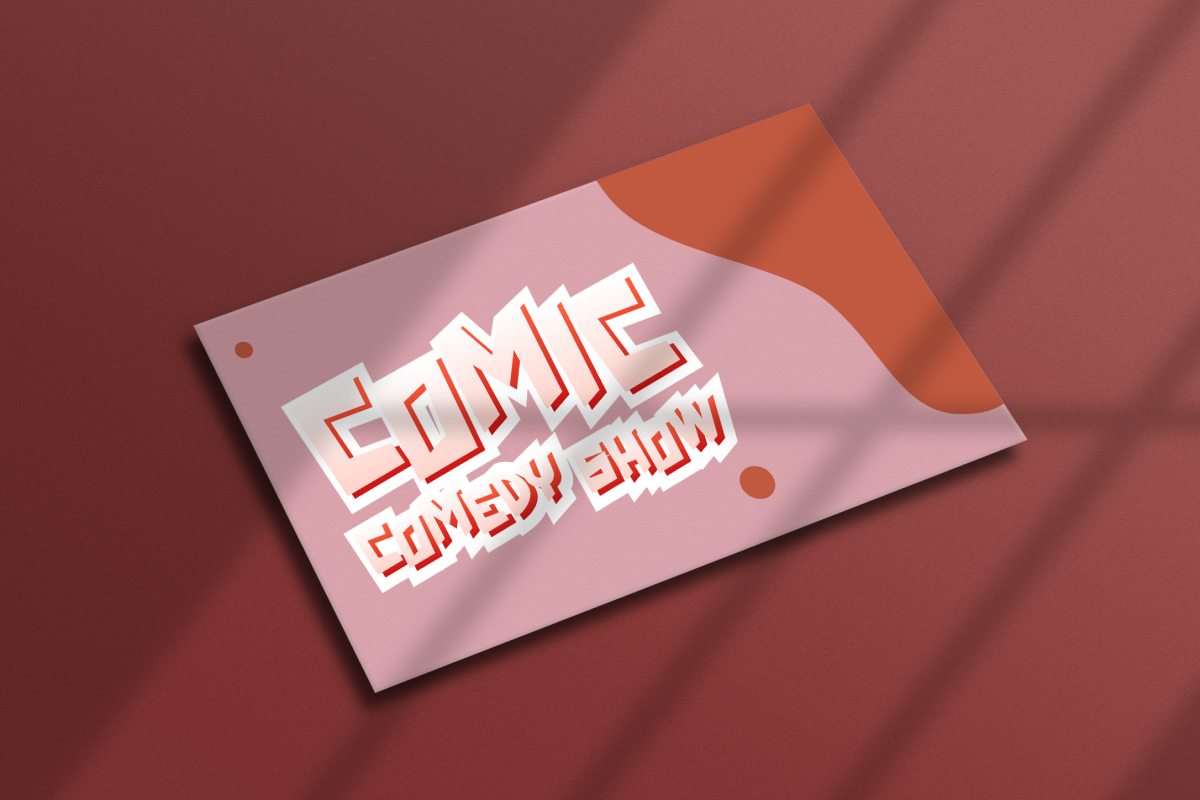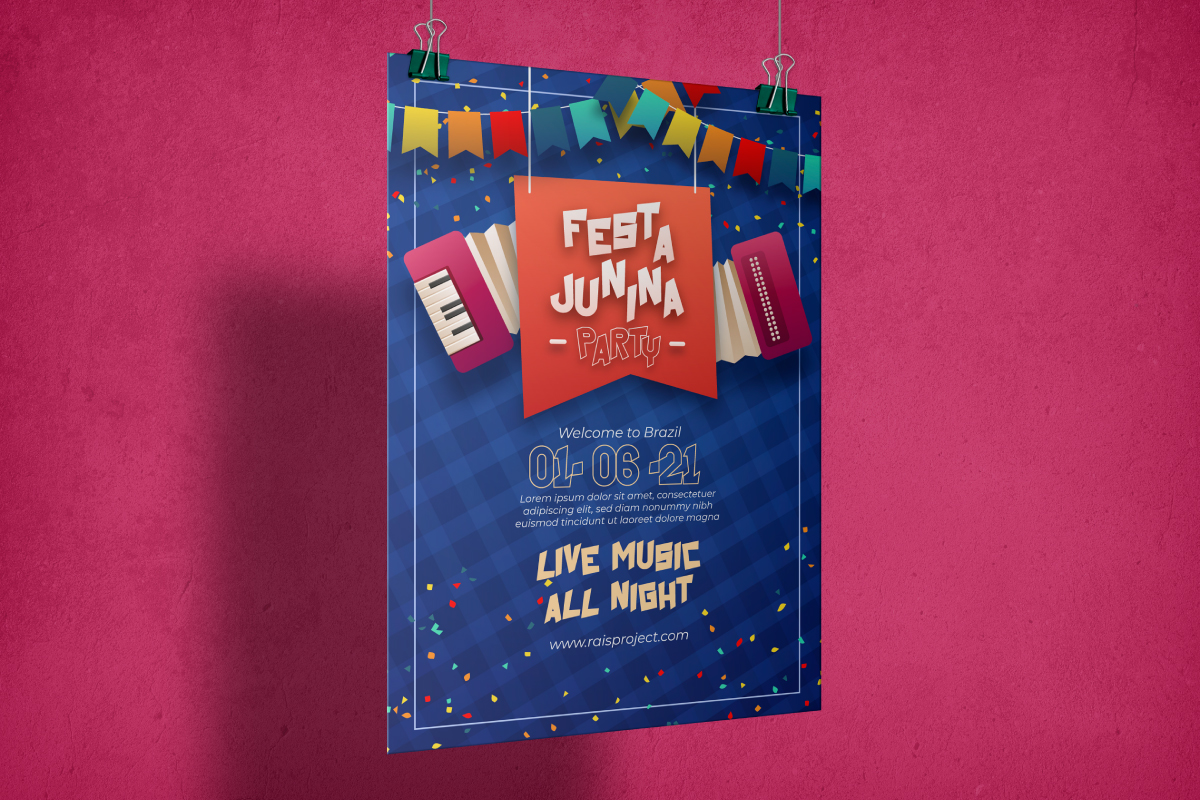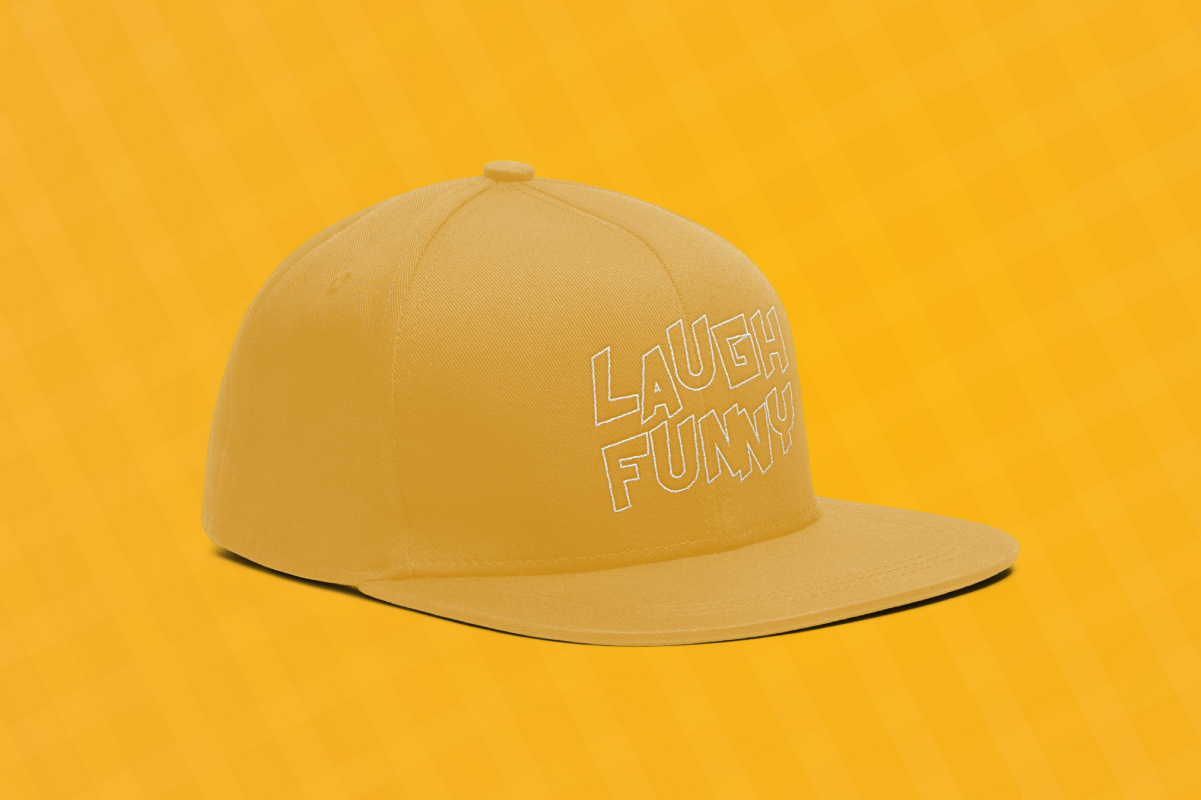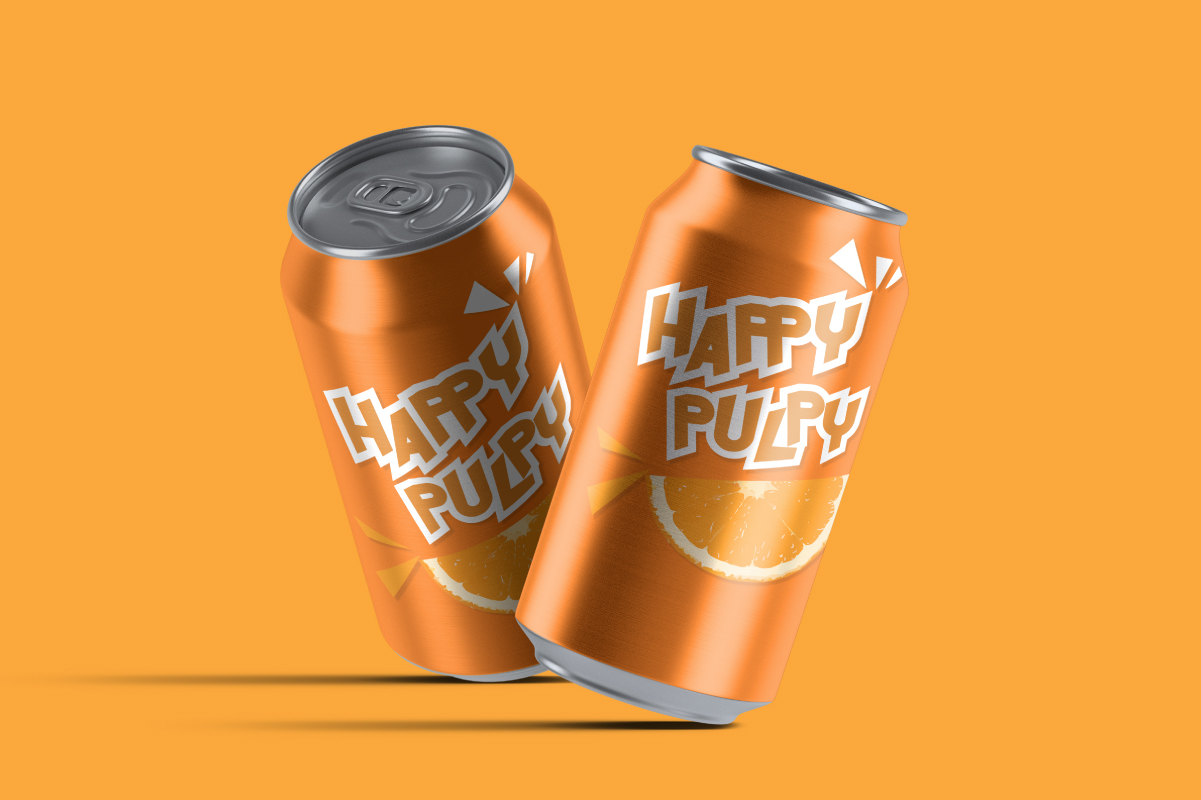
Comedy Buddy Font
Comedy Buddy Display Font
This font was inspired from several comic carton in old days. The font styles we made is funny but standout with unique and exclusive style. The font was handcrafted for any your special projects including : comics, headlines, promotion, events, branding, advertising, magazine, signage, invitation, stationery, social media posts, label, or and any projects that need unique strong style. Comedy Buddy Font includes full set of uppercase letters, numerals, a large range of punctuation and ligatures.